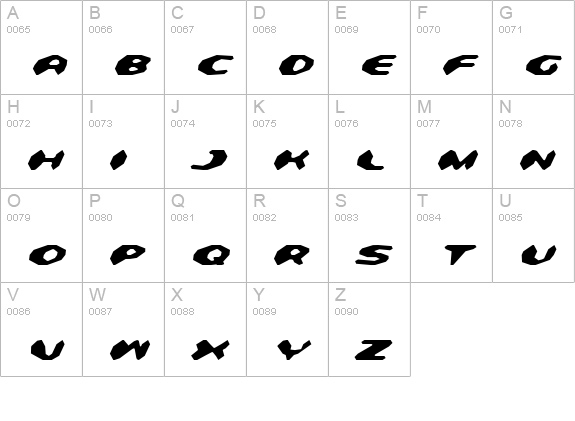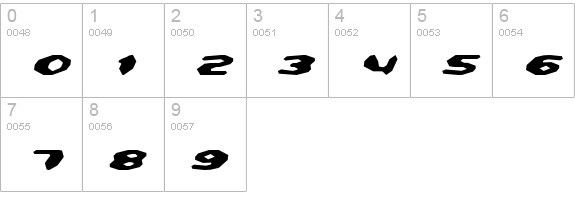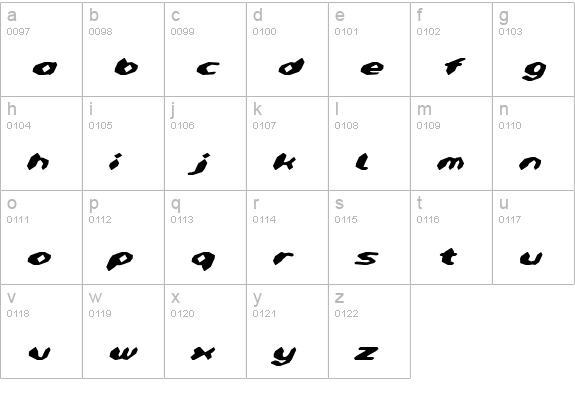
Detonator Italic Font Details
Detonator Italic is a distinctive, italic variant in the Detonator typeface family \xE2\x80\x94 well suited to design and typography projects.
Detonator Italic font is a bold and dynamic typeface that exudes energy and modernity. Its slanted design adds a sense of movement and excitement to any text, making it perfect for headlines, posters, and branding projects. The sharp edges and unique letterforms of Detonator Italic give it a distinct and edgy aesthetic that is sure to make your designs stand out. And the best part? Detonator Italic font is available for free download at FontsMarket.com. This means you can easily add this eye-catching font to your collection without breaking the bank. Whether you're working on a personal project or a client commission, Detonator Italic is a versatile and stylish choice that will help you make a bold statement with your typography. Download it today and start exploring the endless creative possibilities that this font has to offer.